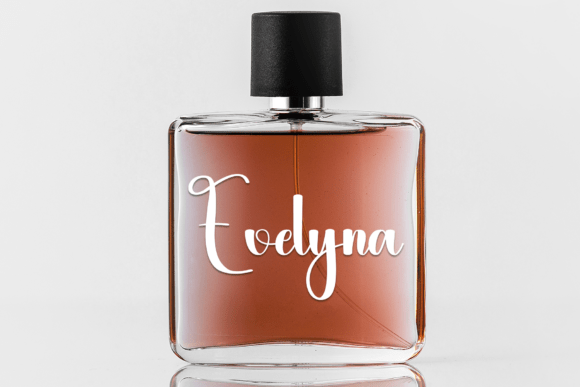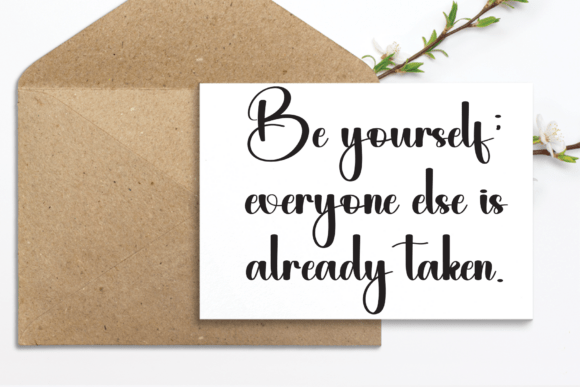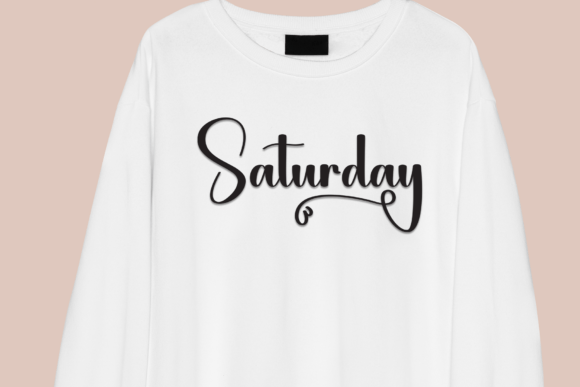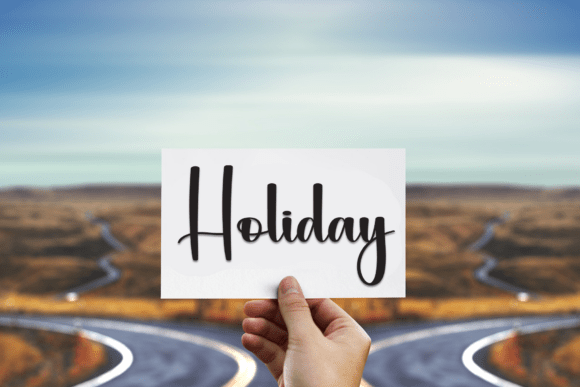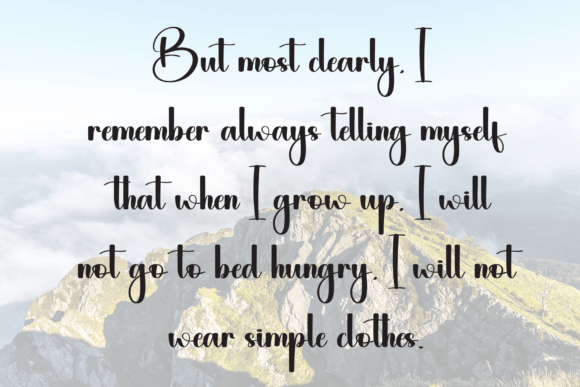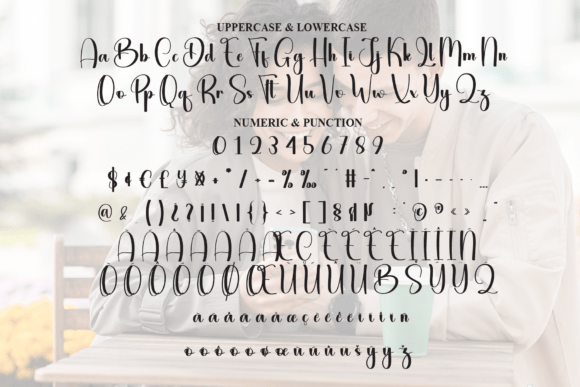
The Perfect Match: Discovering the Charm of Dating Font
I’ll never forget the time I was working on a wedding invitation project, and my client asked for a font that was both elegant and playful. I scoured the internet, tried out countless fonts, but nothing seemed quite right. That was until I stumbled upon Dating Font. With its flowing curves and natural rhythm, it captured the essence of what I was looking for – a font that exudes warmth, sophistication, and creativity. In this article, I’ll share my experience with Dating Font, its features, and how you can make the most of it in your design projects.
A First Impression: What I Love About Dating Font
Dating Font is a stylish handwritten script font that has won my heart with its charming personality. Here are some things I love about it:
- ✨ Elegant yet playful strokes that add a personal touch to any project
- ✅ Flowing curves and natural rhythm that make it a joy to read
- 💫 Perfect for invitations, branding, and social media, where a touch of sophistication is needed
- 🎨 Highly versatile and can be used for a wide range of creative projects
The Not-So-Perfect: Small Quirks and Limitations
While Dating Font is an excellent choice for many projects, there are a few quirks to be aware of:
- 🤔 Some letters may appear a bit cramped, so it’s essential to adjust the tracking and kerning for optimal results
- ⚠️ Limited availability of certain OpenType features, which may restrict its use in specific design applications
The Story Behind Dating Font: Designer Inspiration
Dating Font was created with the intention of capturing the essence of romance and playfulness in a single font. Its designer aimed to create a font that would be both elegant and approachable, perfect for a wide range of creative projects. While the designer’s story may be fictional, the font’s charm and character are undeniable.
| What type of projects is Dating Font best suited for? | Dating Font is perfect for invitations, branding, social media, and any project that requires a touch of elegance and playfulness. |
| Is Dating Font suitable for body text? | While Dating Font is beautiful, it’s best used for headings and titles. Its elegant strokes may not be suitable for long blocks of body text. |
| Are there any OpenType features available in Dating Font? | Yes, Dating Font includes some OpenType features, such as stylistic alternates and glyphs. Experiment with these features to add creativity to your design. |